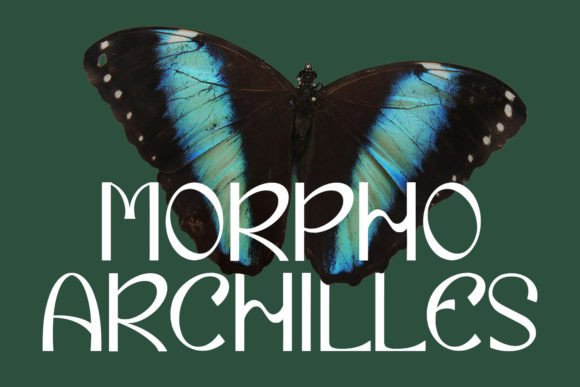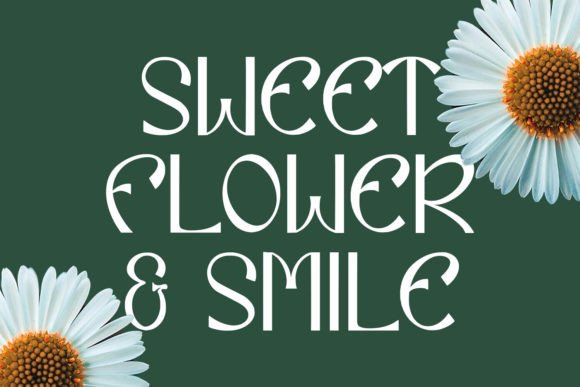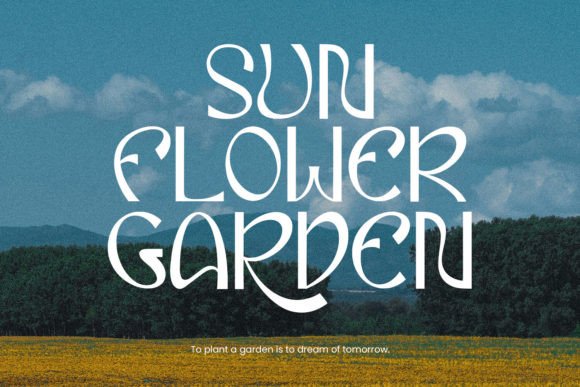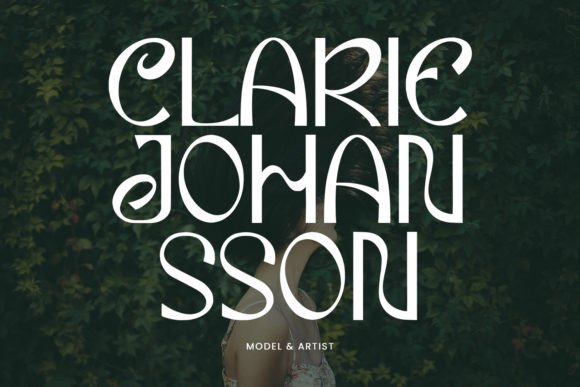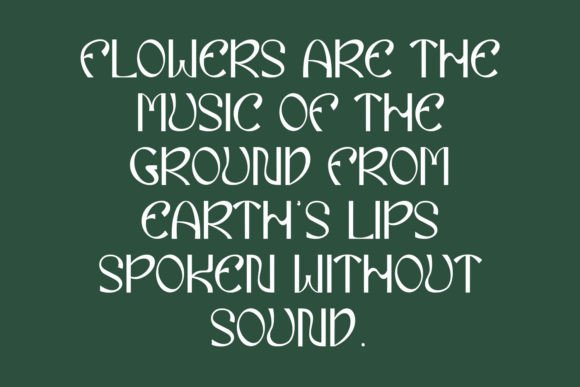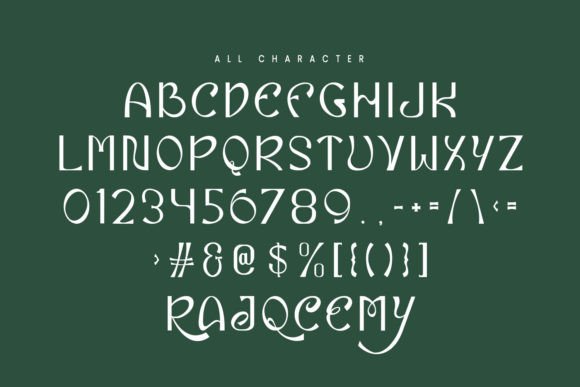
Discover the Whimsical World of Eiclare Font
I’ll never forget the time I was working on a project for a children’s book, and I just couldn’t find the right font to match the playful tone of the story. The client wanted something that would make the title stand out, but still be easy to read. That’s when I stumbled upon Eiclare Font, and it was love at first sight! ✨
What Makes Eiclare Font So Special?
Eiclare is a fun and playful font with wavy, curvy letters that add a touch of whimsy to any design. It’s perfect for creating eye-catching titles and designs that stand out with a unique, flowing style. In this article, we’ll dive into the world of Eiclare Font, exploring its features, how to use it, and some similar fonts you might love.
Honest Review: The Good and the Quirky
What I Love About Eiclare Font
- ✨ Unique and playful design that’s perfect for creative projects
- ✅ Easy to read, even in larger or smaller sizes
- 🎉 Supports OpenType features, glyphs, and stylistic alternates for added customization
- 🖌️ Great for titles, headings, and short paragraphs
While Eiclare Font is amazing, there are a few things to keep in mind: 🤔
- ⚠️ May not be the best choice for very long texts or body copy, as it can be a bit distracting
- ⚠️ Some characters may not work well in very small sizes, so it’s best to use it in larger sizes
If you love Eiclare Font, you might also enjoy these similar fonts:
- Kwadrant: A fun, geometric font with a similar playful vibe
- Great Vibes: A script font with a flowing, elegant style
- Lobster: A bold, cursive font with a whimsical feel
- Pacifico: A beautiful, flowing script font with a relaxed vibe
The Story Behind Eiclare Font
Eiclare Font was designed with the intention of creating a playful, yet elegant font that would add a touch of whimsy to any design. The designer, inspired by the flowing curves of handwritten letters, created a font that would be perfect for titles, headings, and short paragraphs. While the exact backstory of Eiclare Font may be unknown, its design is certainly inspired by the world of hand-drawn typography.
Q: What is Eiclare Font best used for?
A: Eiclare Font is best used for titles, headings, and short paragraphs where you want to add a touch of whimsy and playfulness.
Q: Is Eiclare Font easy to read?
A: Yes, Eiclare Font is generally easy to read, even in larger or smaller sizes. However, it may not be the best choice for very long texts or body copy.
Q: Does Eiclare Font support OpenType features?
A: Yes, Eiclare Font supports OpenType features, glyphs, and stylistic alternates, which can be accessed through compatible design software.